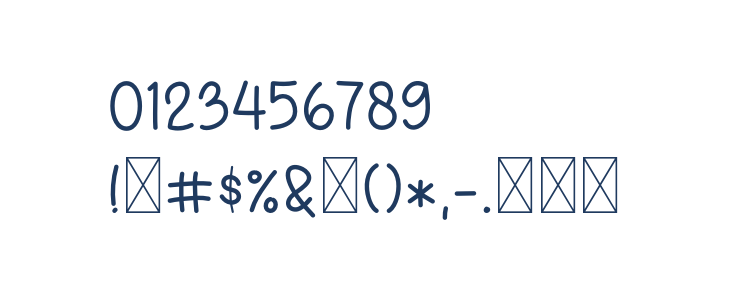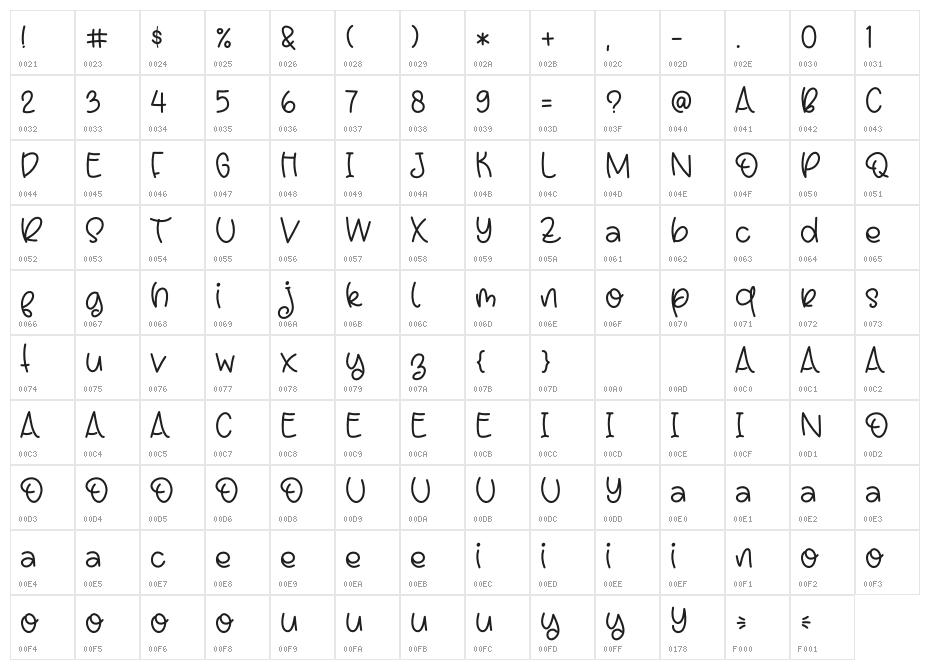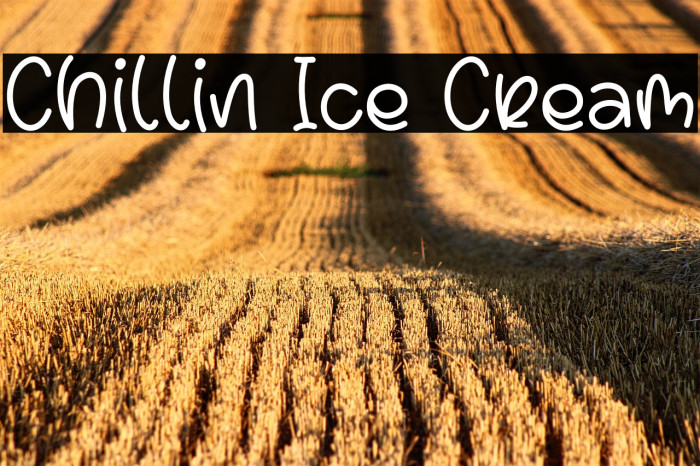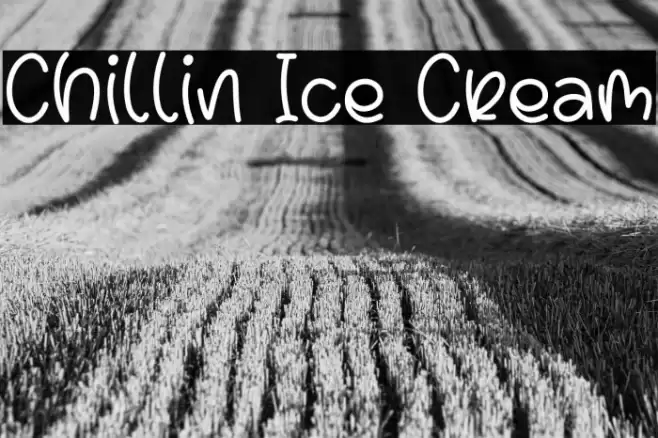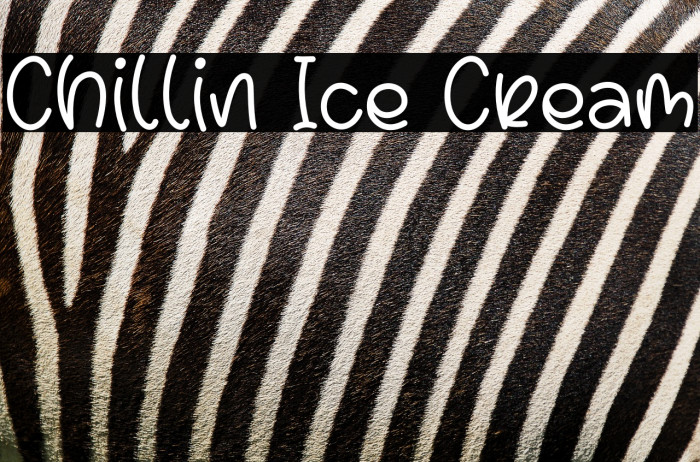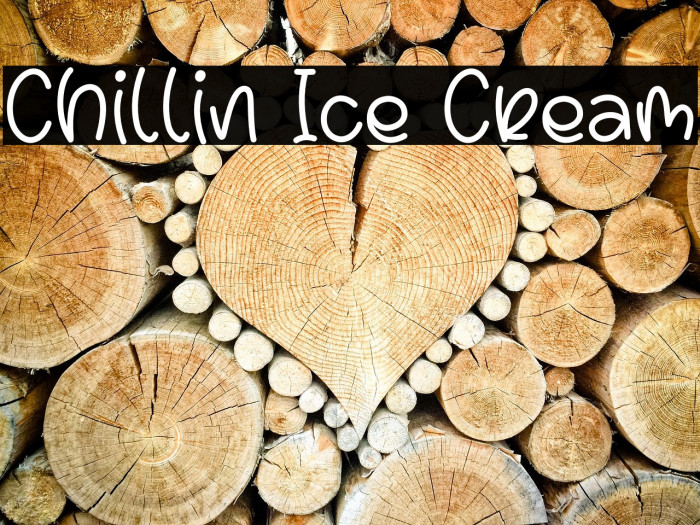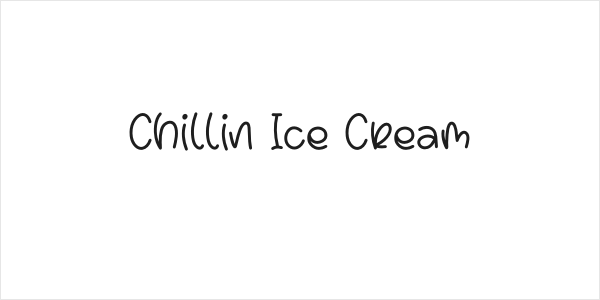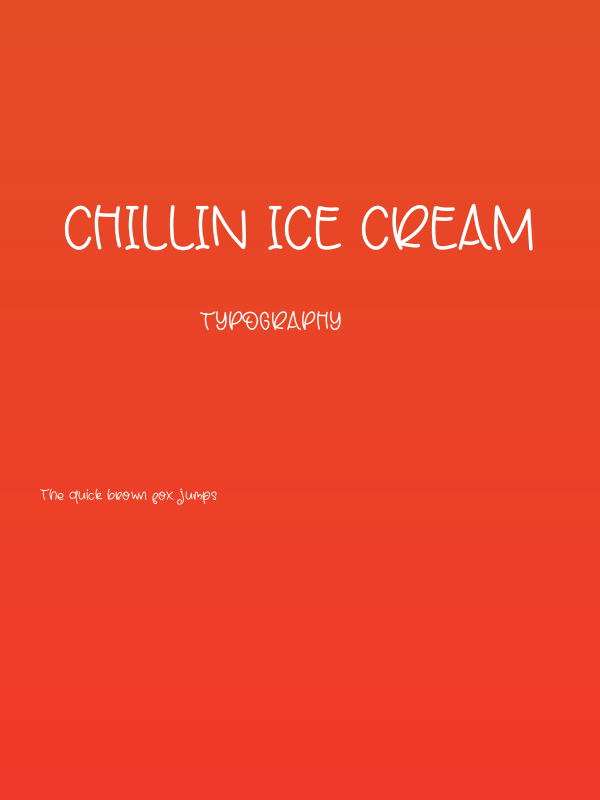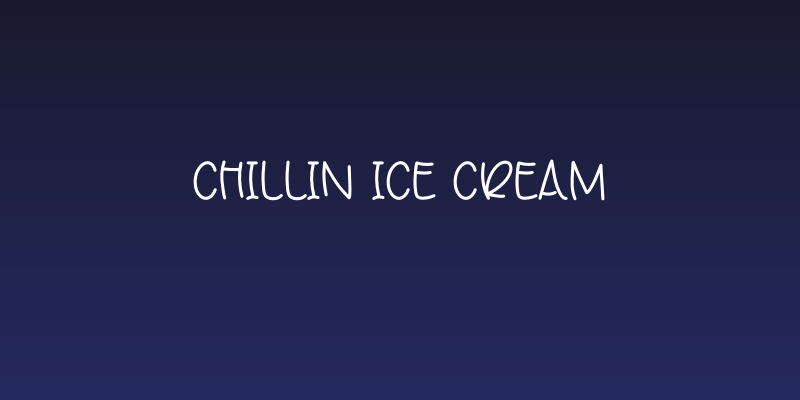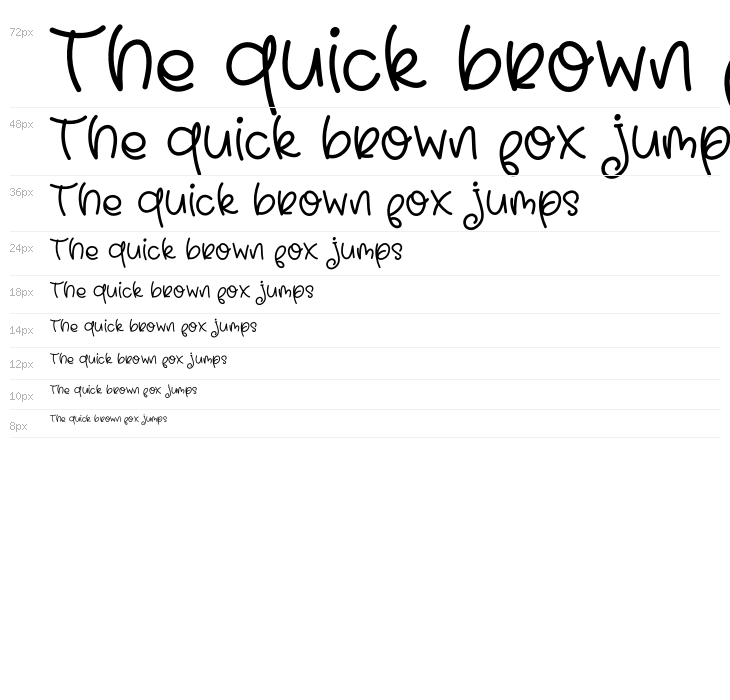
Chillin Ice Cream Font
Chillin Ice Cream Description
This playful and whimsical font features a handwritten style with smooth, rounded edges and a casual, friendly appearance. The letters are slightly irregular, adding a touch of personality and charm. The uppercase and lowercase characters maintain a consistent flow, with some letters featuring unique loops and curls that enhance the font's playful nature. The numerals and special characters are designed to match the overall style, ensuring a cohesive look across all text elements. This font is perfect for projects that require a fun and approachable aesthetic.
| Use Case | Logos, Invitations, Casual Text |
| Proposed Projects | Ideal for children's books, playful branding, greeting cards, and casual invitations. |